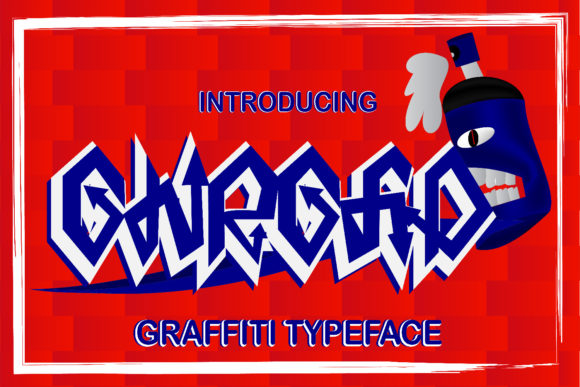
Introducing Onroad Graffiti Font, a captivating display font that bursts with urban energy and artistic flair. Its bold, graffiti-inspired strokes dance across your designs, evoking the vibrancy and freedom of street art. Unleash your creativity and let Onroad Graffiti bring your words to life with a touch of rebellious charm.
Experience the thrill of transforming your designs into eye-catching masterpieces with Onroad Graffiti. Its dynamic lines and edgy characters add an instant dose of cool to any project. Whether you're designing logos, posters, flyers, or social media graphics, Onroad Graffiti is your go-to font for making a statement.
Step into the spotlight and command attention with Onroad Graffiti. Its unique style is guaranteed to turn heads and leave a lasting impression. Perfect for creating standout branding, packaging, or website designs, Onroad Graffiti ensures your message will resonate with audiences who appreciate bold and unconventional aesthetics.
With Onroad Graffiti, the possibilities are endless. Let your imagination run wild as you explore new design horizons. Its versatility extends to a wide range of applications, including t-shirt designs, album covers, book covers, and even tattoos. Embrace the artistic freedom and let your designs flow effortlessly with Onroad Graffiti.